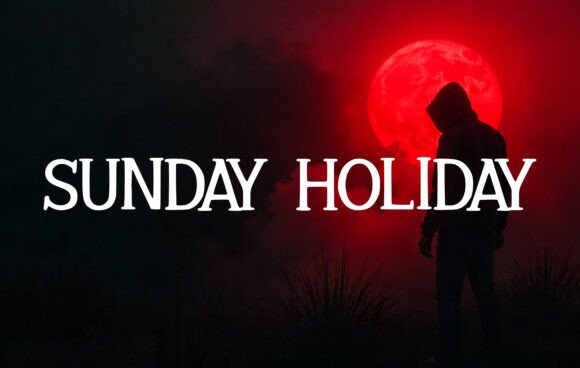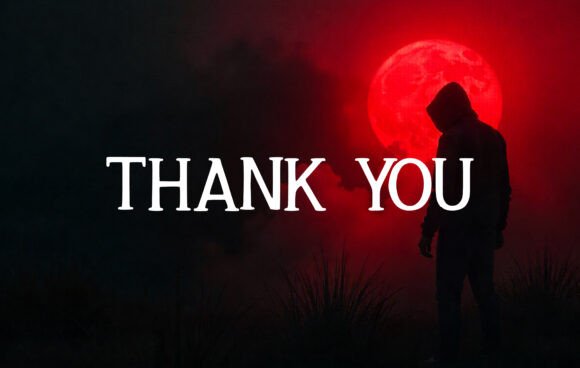
Command Attention with the Feeling Font: Elevate Your Designs with Authority and Mood
In the world of design, typography plays a crucial role in conveying the tone and personality of a brand or creative project. When it comes to making a bold statement, few fonts can match the impact of the Feeling font. This striking serif typeface is engineered to command attention, exuding authority, mystery, and urban sophistication. In this article, we’ll explore the unique features of the Feeling font, its versatility, and how to harness its power to elevate your designs.
The Distinctive Characteristics of Feeling Font
The Feeling font boasts firm vertical strokes and distinctive angular cuts, perfectly balanced with sharp edges that create a strong visual rhythm. These features combine to produce a typeface that is both bold and evocative, making it an ideal choice for designs that require a sense of gravitas and mood. The Feeling font’s serif design adds a touch of classic sophistication, while its modern aesthetic ensures it remains fresh and contemporary.
Perfect for High-Impact Designs
The Feeling font is specifically designed for high-impact applications, including cinematic posters, book covers, and branding projects that demand attention. Its versatility makes it an excellent choice for headlines and editorial layouts, where its atmospheric character can be fully leveraged. Whether you’re designing a logo for a cutting-edge creative studio or a title for a dramatic digital magazine, the Feeling font provides a solid and professional foundation that radiates confidence.
Creating a Moody and Atmospheric Effect
To unlock the full potential of the Feeling font, pair it with high-contrast, moody photography and deep color palettes. This harmonious combination will amplify the font’s atmospheric character, creating a visually stunning effect that draws the viewer in. The Feeling font’s bold and evocative nature makes it an excellent match for designs that require a sense of mystery or urban sophistication.
Why Feeling Font is a Must-Have for Designers
The Feeling font is a valuable addition to any designer’s toolkit, offering a level of versatility that makes it suitable for a wide range of applications. Its unique features and bold aesthetic ensure that it can be used in various contexts, from print to digital media. Here are just a few reasons why the Feeling font is a must-have:
- Authority and Mood: The Feeling font exudes authority and mood, making it perfect for designs that require a sense of gravitas.
- Versatility: Its versatility ensures that it can be used in various contexts, from headlines to editorial layouts.
- Modern Sophistication: The Feeling font’s modern aesthetic ensures it remains fresh and contemporary, while its serif design adds a touch of classic sophistication.
Tips for Using Feeling Font Effectively
To get the most out of the Feeling font, follow these tips:
- Pair with Moody Photography: Combine the Feeling font with high-contrast, moody photography to amplify its atmospheric character.
- Experiment with Deep Color Palettes: Deep color palettes will enhance the font’s bold and evocative nature, creating a visually stunning effect.
- Use for Headlines and Editorial Layouts: The Feeling font is perfect for headlines and editorial layouts, where its bold aesthetic can be fully leveraged.
In conclusion, the Feeling font is a powerful tool for designers and crafters looking to add a touch of authority, mystery, and urban sophistication to their work. Its unique features, versatility, and bold aesthetic make it an excellent choice for high-impact designs, including cinematic posters, book covers, and branding projects. By harnessing the power of the Feeling font and pairing it with high-contrast photography and deep color palettes, you’ll be able to create visually stunning designs that command attention and leave a lasting impression.